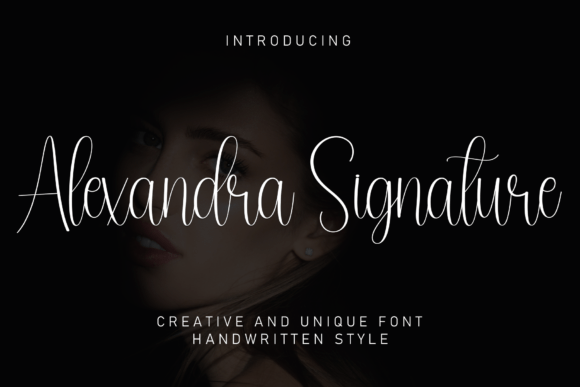
Introducing Alexandra Signature Font: The Sweet and Friendly Handwritten Font
Are you looking for a font that can add a personal touch to your designs? Look no further than the Alexandra Signature font. This sweet and friendly handwritten font is perfect for creating beautiful wedding invitations, cards, and other designs that require a lovely touch. In this article, we’ll take a closer look at the Alexandra Signature font, its features, and how you can use it to elevate your designs.
What is Alexandra Signature Font?
Alexandra Signature is a fresh and casual handwritten font that is designed to bring a touch of warmth and personality to your designs. With its smooth and flowing lines, this font is perfect for creating a sense of elegance and sophistication. Whether you’re designing wedding invitations, greeting cards, or other paper crafts, the Alexandra Signature font is sure to impress.
Key Features of Alexandra Signature Font
So, what makes the Alexandra Signature font so special? Here are some of its key features:
- Sweet and Friendly: The Alexandra Signature font has a sweet and friendly feel to it, making it perfect for designs that require a personal touch.
- Handwritten: This font has a beautiful handwritten quality that gives it a unique and authentic feel.
- Fresh and Casual: The Alexandra Signature font is fresh and casual, making it perfect for designs that require a relaxed and informal feel.
- Elegant and Sophisticated: Despite its casual feel, the Alexandra Signature font is also elegant and sophisticated, making it perfect for more formal designs.
Uses for Alexandra Signature Font
So, how can you use the Alexandra Signature font in your designs? Here are some ideas:
- Wedding Invitations: The Alexandra Signature font is perfect for creating beautiful wedding invitations that are both elegant and personal.
- Greeting Cards: This font is also great for creating greeting cards for special occasions such as birthdays, anniversaries, and holidays.
- Paper Crafts: The Alexandra Signature font is perfect for paper crafters who want to add a personal touch to their designs.
- Stationery: You can also use this font to create beautiful stationery such as letterheads, journals, and notebooks.
Tips for Using Alexandra Signature Font
Here are some tips for using the Alexandra Signature font in your designs:
In conclusion, the Alexandra Signature font is a beautiful and versatile font that is perfect for designers and crafters who want to add a personal touch to their designs. With its sweet and friendly feel, fresh and casual quality, and elegant and sophisticated style, this font is sure to impress. Whether you’re designing wedding invitations, greeting cards, or other paper crafts, the Alexandra Signature font is a great choice.